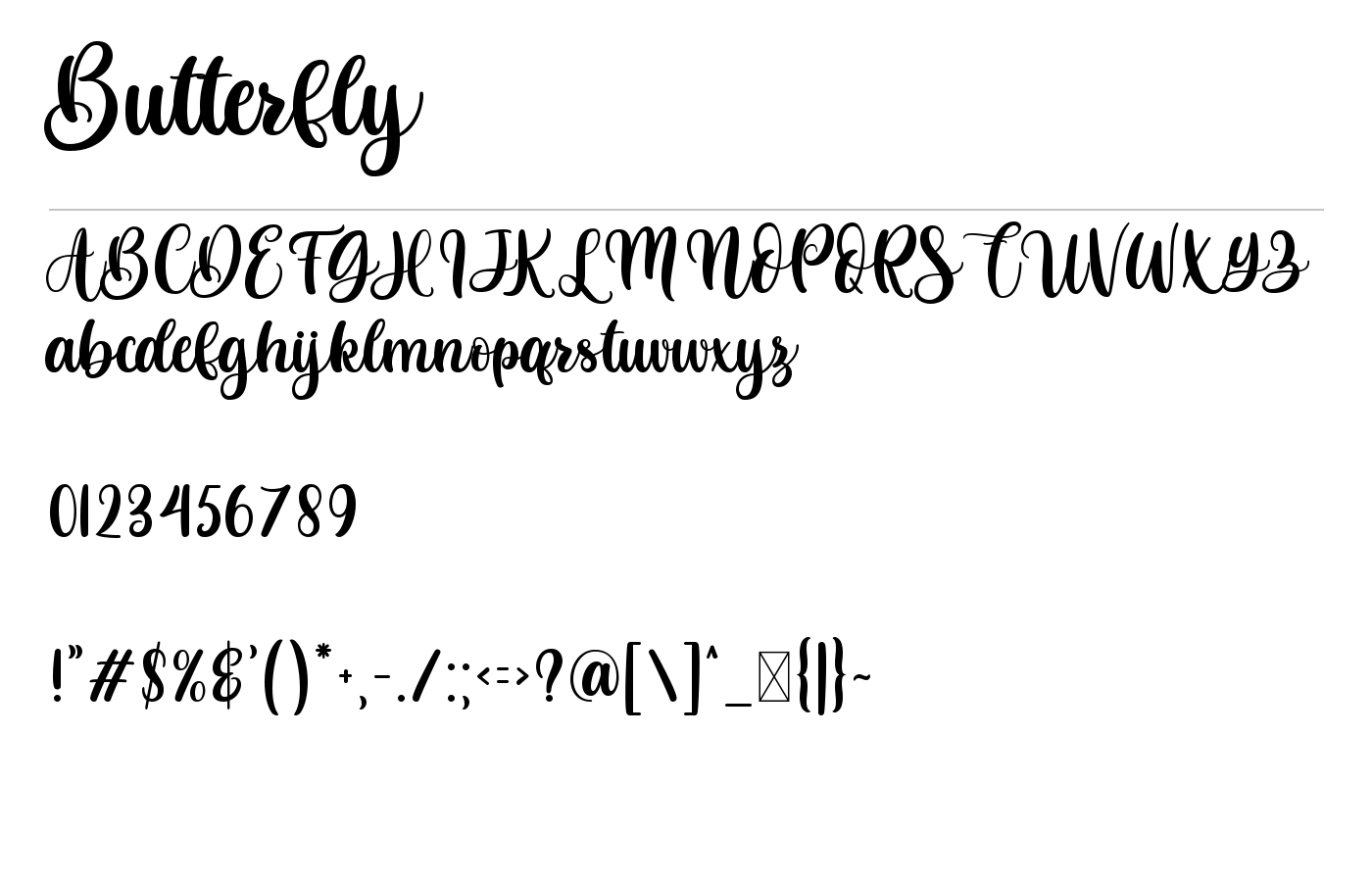
Butterfly Font is a graceful and playful script typeface with elegant, flowing strokes and high contrast between thick and thin lines. Its cursive letterforms and delicate swashes create a hand-lettered feel that works beautifully for invitations, branding, and decorative headings, adding a touch of charm and sophistication. This font shines in projects that seek a warm, personal, and stylish aesthetic.
Butterfly Font
About Butterfly Font